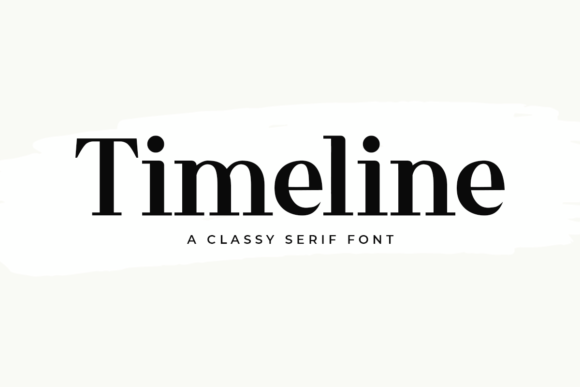
Dive into the timeless beauty of Timeline Font, a serif masterpiece designed to elevate your print projects to new heights of elegance. Experience the enchanting fusion of classic aesthetics and contemporary flair, where each letter dances on the page with poise and grace.
Feel the weight of history as Timeline's serifs whisper tales of enduring craftsmanship, while its graceful curves evoke a sense of timeless sophistication. Let your designs bask in the warmth of Timeline's vintage charm, expertly reimagined for the modern era.
With Timeline, you hold the key to unlocking a world of creative possibilities. Its remarkable versatility empowers you to craft designs that span a vast spectrum of styles, from classic and traditional to eclectic and contemporary. Create logos that radiate authority and trust, branding that exudes elegance and distinction, and marketing materials that capture hearts with their captivating allure.
Immerse yourself in Timeline's rich character set, meticulously endowed with a treasure trove of glyphs and ligatures. Unleash your creativity as you explore the endless possibilities of typographic artistry, weaving words into visually stunning masterpieces.
Elevate your print designs to the realm of masterpieces with Timeline Font, the ultimate serif companion for discerning designers and typography enthusiasts. Embrace the timeless allure of this exquisite font and watch as your creations transcend the ordinary, leaving an indelible mark on the world of design.